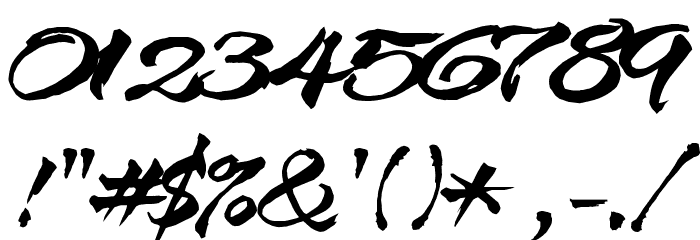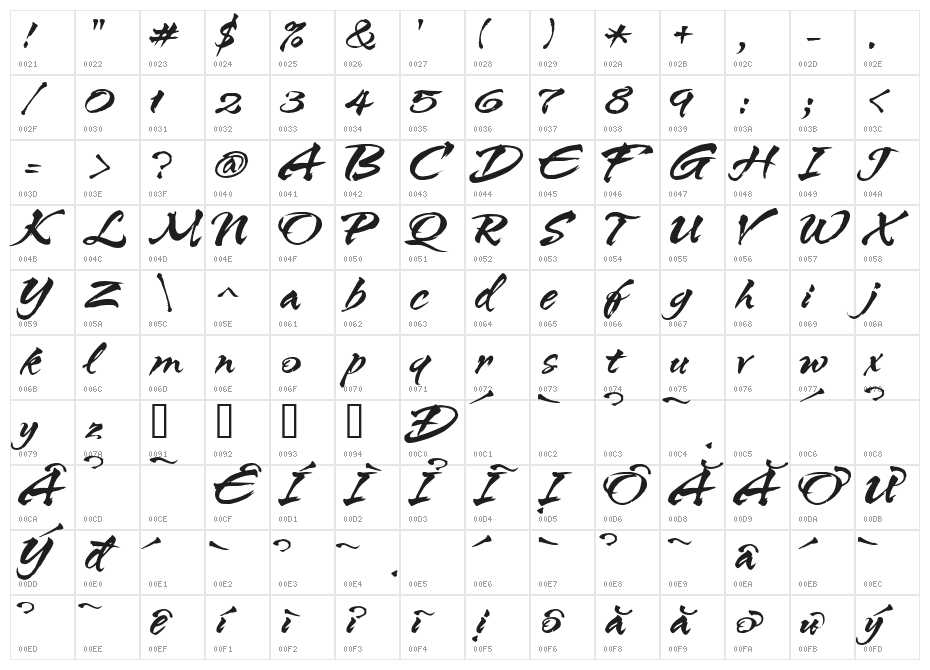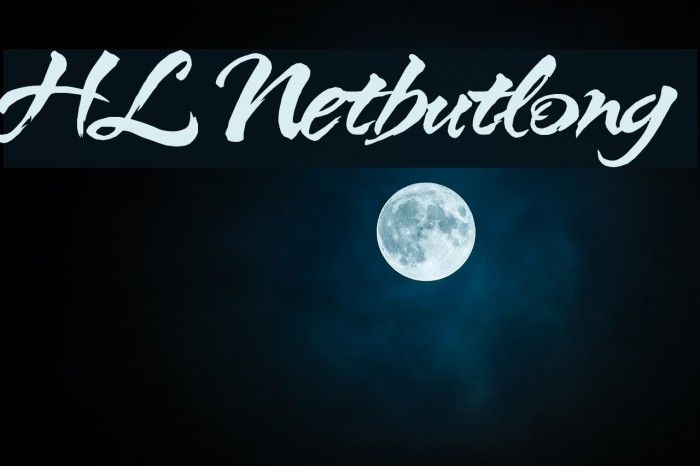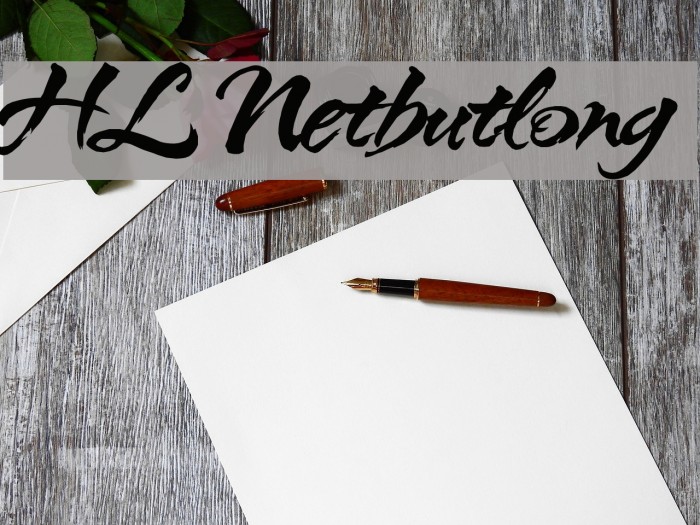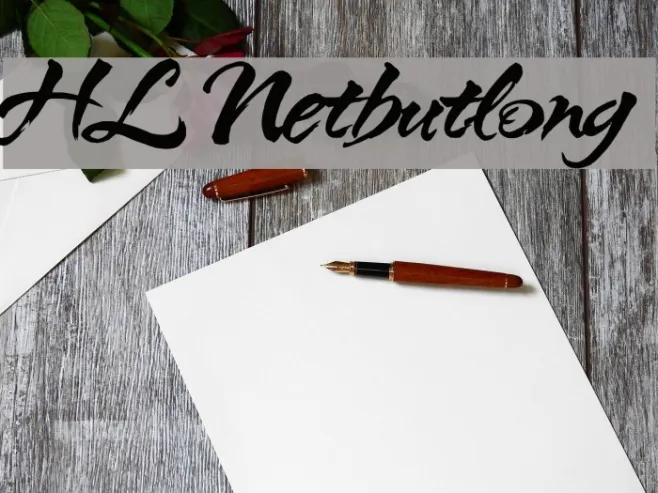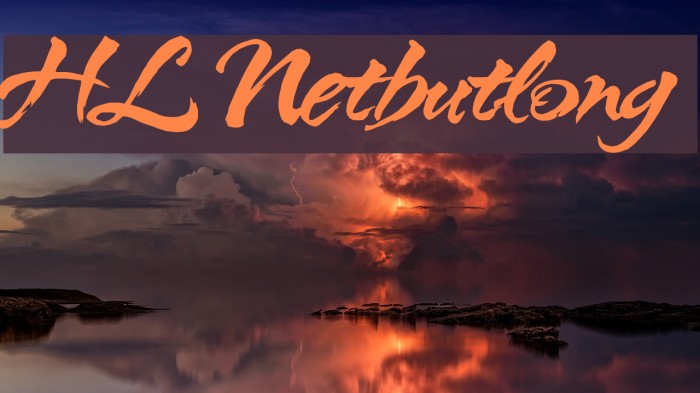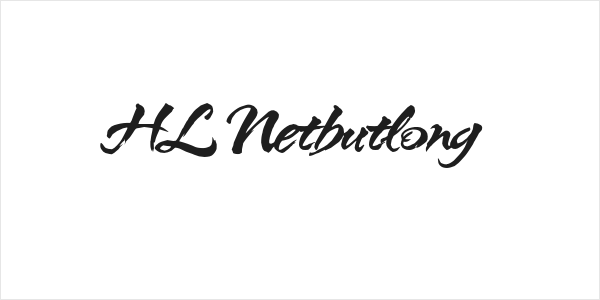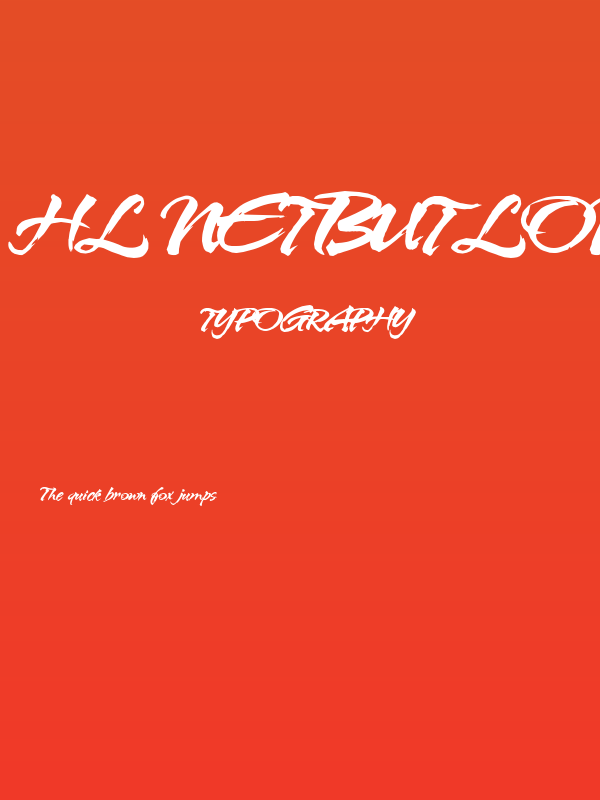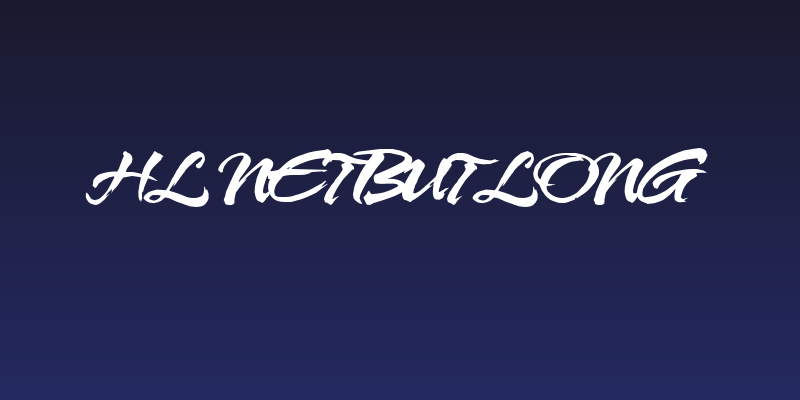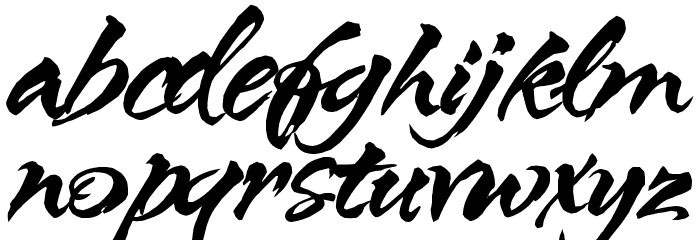
HL Netbutlong Font
HL Netbutlong Description
This font exhibits a dynamic and expressive style, characterized by its bold and fluid script. The letters are interconnected, giving it a handwritten appearance with a modern twist. The strokes are thick and energetic, with varying widths that add a sense of movement and flair. The uppercase letters maintain a consistent height, while the lowercase letters feature distinctive loops and curves. Numbers and special characters are crafted with the same boldness, ensuring uniformity across all elements. This font is ideal for projects that require a personal touch or a statement piece.
| Proposed Projects | Ideal for branding, invitations, posters, and any design requiring a personal, expressive touch. |